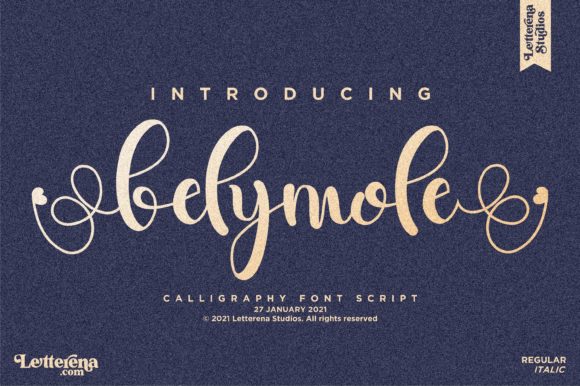
The Belymole Font: A Charming Script for Your Design Projects
Belymole is a lovely script font that can add a charming touch to any design project. Its elegant strokes and beautiful swashes make it perfect for projects that require a touch of sophistication. In this article, we’ll dive into the world of Belymole, exploring its features, how to use it, and some similar fonts you might love.
An Honest Review of Belymole Font
What I Love About Belymole ✨
- 💫 Elegant and charming appearance, perfect for projects that require a touch of sophistication
- ✅ PUA encoded, making it easy to access all glyphs and swashes
- 🌈 Beautiful swashes and stylistic alternates to add a creative touch
- 📚 Extensive character set, including support for multiple languages
- ⚠️ Limited use in very formal or traditional designs, as it may come across as too playful
- 🤔 May require some experimentation to find the perfect combination of swashes and glyphs
The Story Behind Belymole
Belymole was designed with the intention of creating a beautiful, elegant script font that would add a touch of sophistication to any design project. The designer aimed to create a font that would be versatile, yet charming, making it perfect for a wide range of applications.
Q: What is PUA encoding, and how does it benefit Belymole?
A: PUA (Private Use Area) encoding allows designers to access a wide range of glyphs and swashes, making it easier to create unique and creative designs. In the case of Belymole, PUA encoding provides access to a vast array of beautiful swashes and stylistic alternates.
Q: Is Belymole suitable for body text?
A: While Belymole is a beautiful font, it’s recommended for use in headlines, titles, and short paragraphs. For body text, a clearer font may be more suitable.